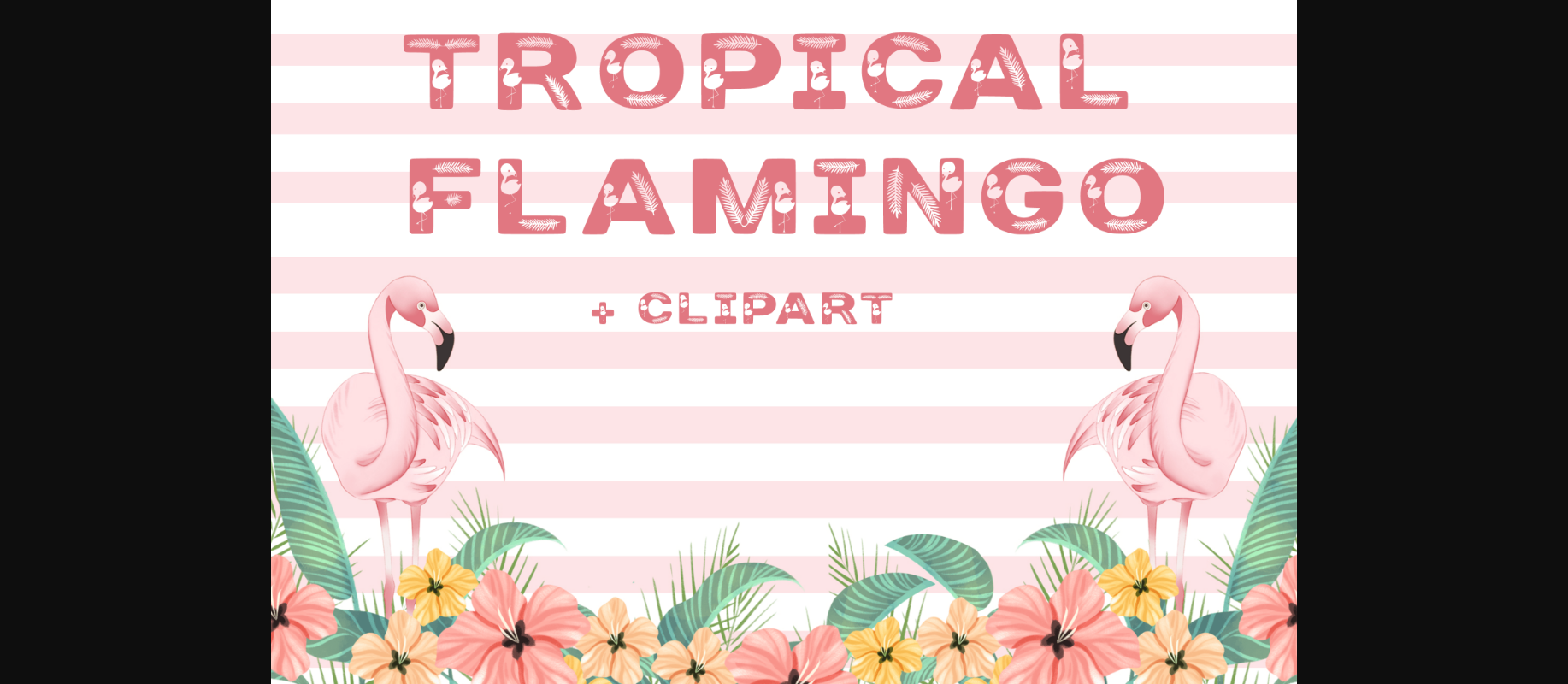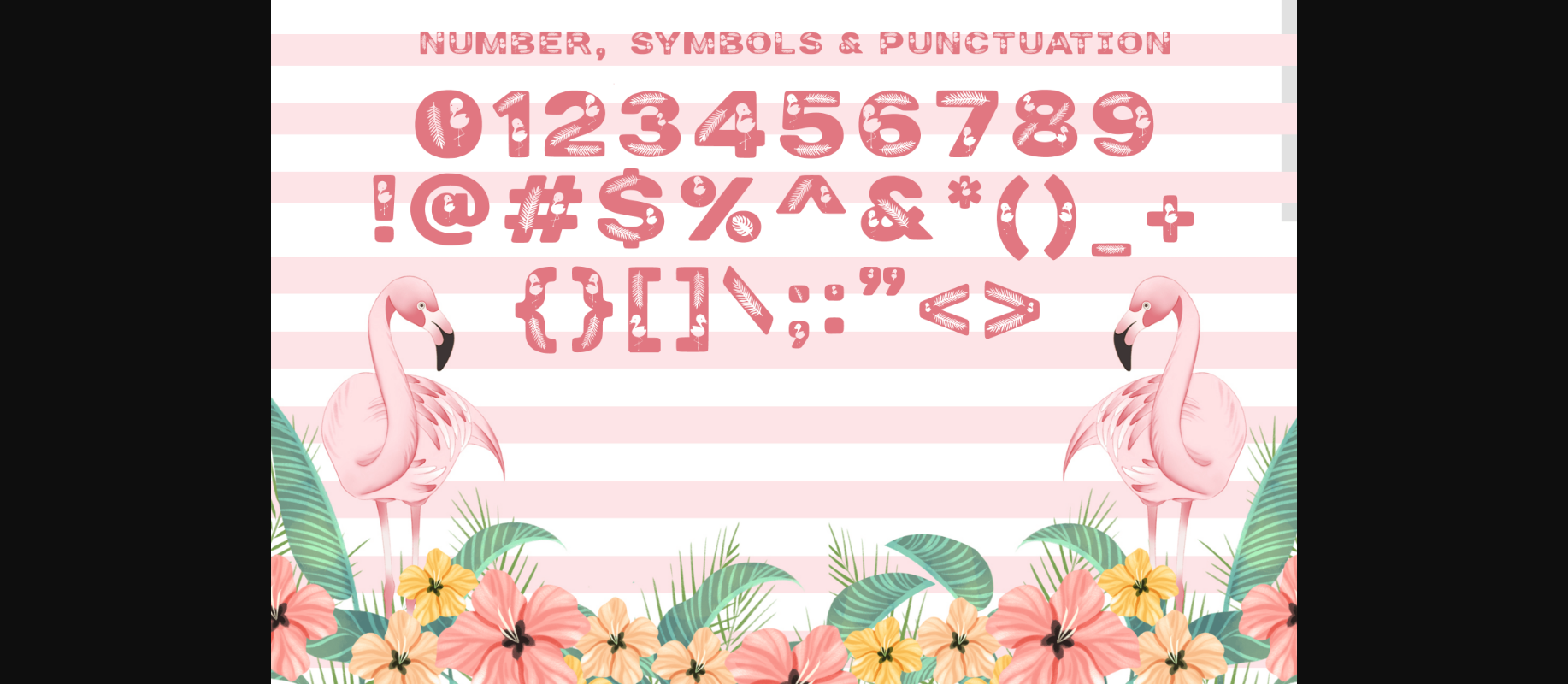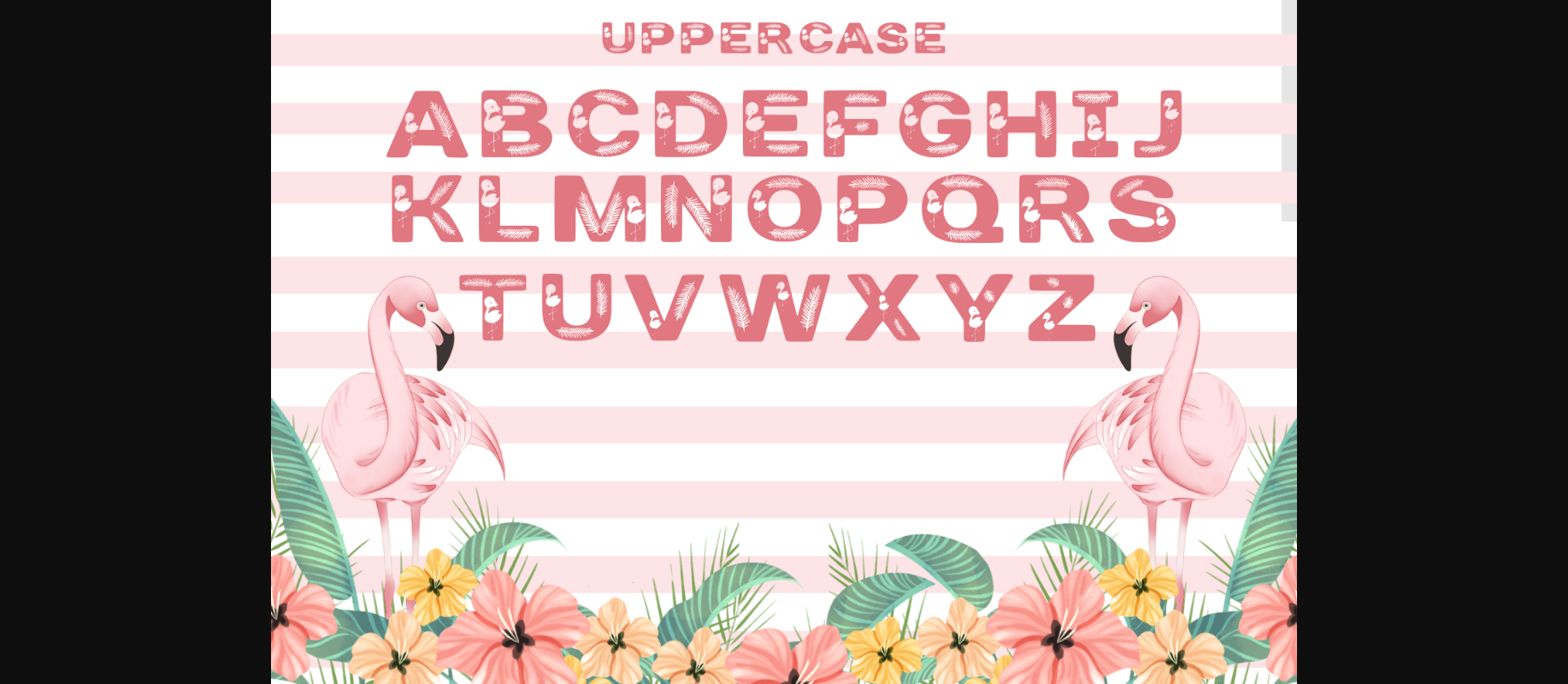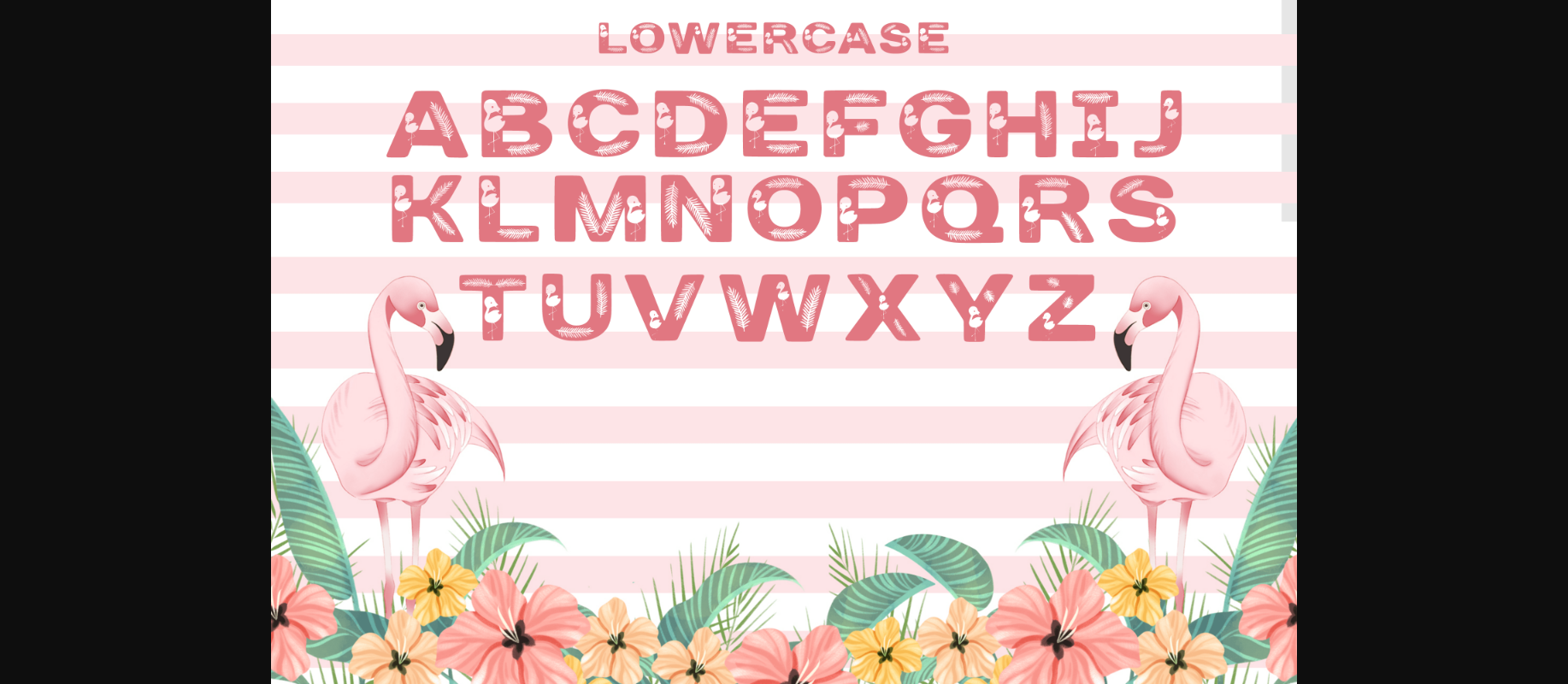
About Tropical Flamingo Font
Tropical Flamingo is a cute and fun decorative font. It embodies playfulness and authenticity and is the perfect choice for various projects such as blog posts, logos, branding, ads, invitations, greeting cards, planners, photo albums, decorations, and more.